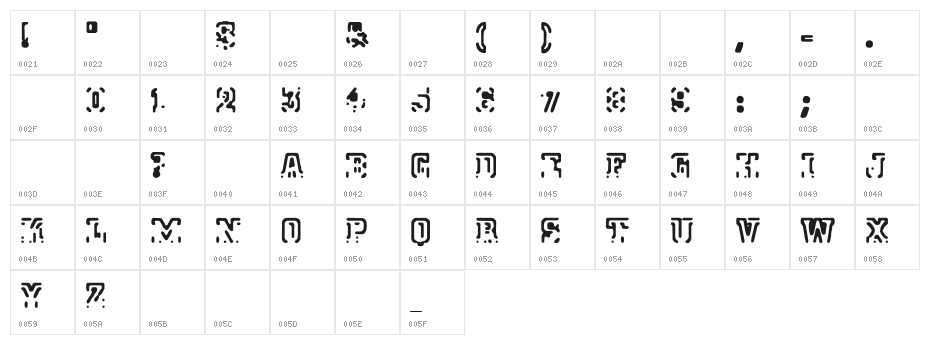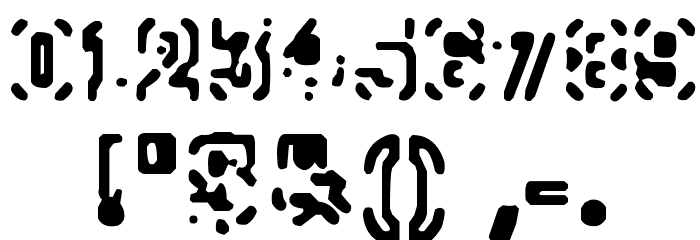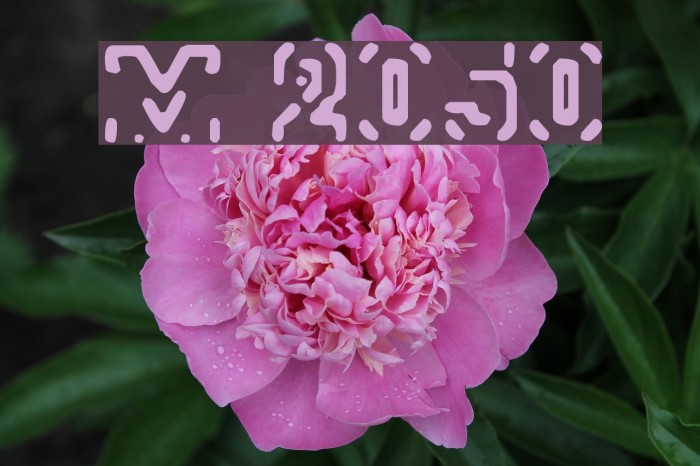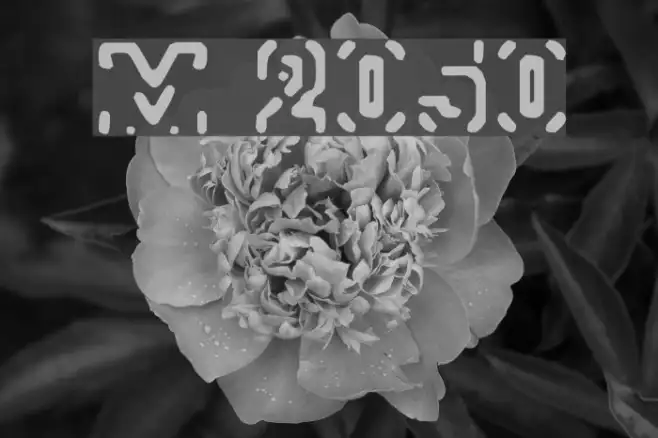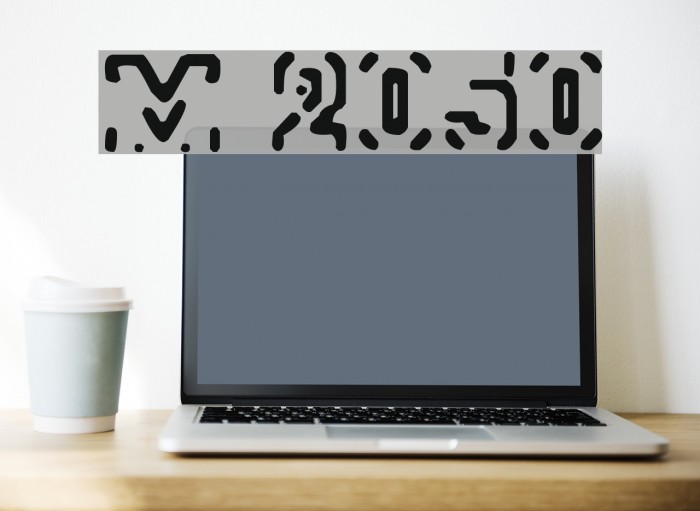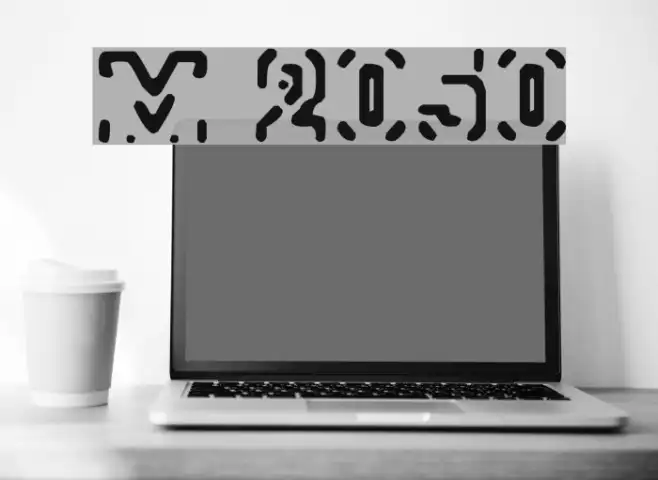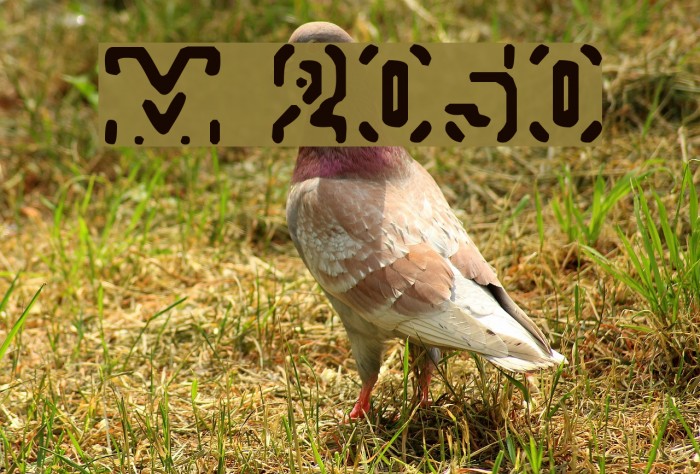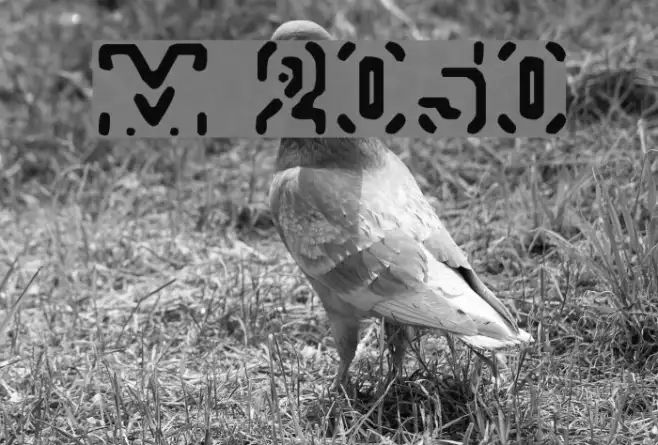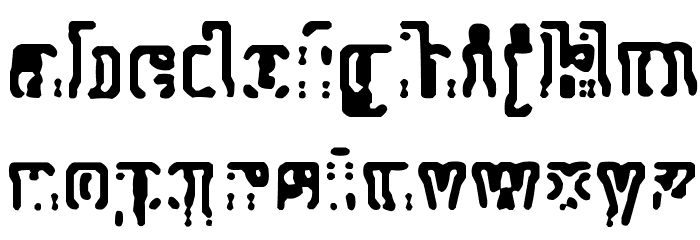
Morse 2050 Font
Morse 2050 Description
This font features a unique and futuristic design, incorporating elements reminiscent of Morse code with dots and dashes integrated into each character. The uppercase and lowercase letters, as well as numbers and special characters, all share this distinct style, creating a cohesive and intriguing visual effect. The characters are bold and have a strong presence, making them stand out. The design is highly decorative, with a modern twist that suggests a digital or technological theme. The spacing between characters is relatively tight, enhancing the compact and efficient look of the text.
| Use Case | Logos, Headlines, Posters |
| Proposed Projects | Ideal for sci-fi themed projects, technology branding, digital art, and futuristic event posters. |